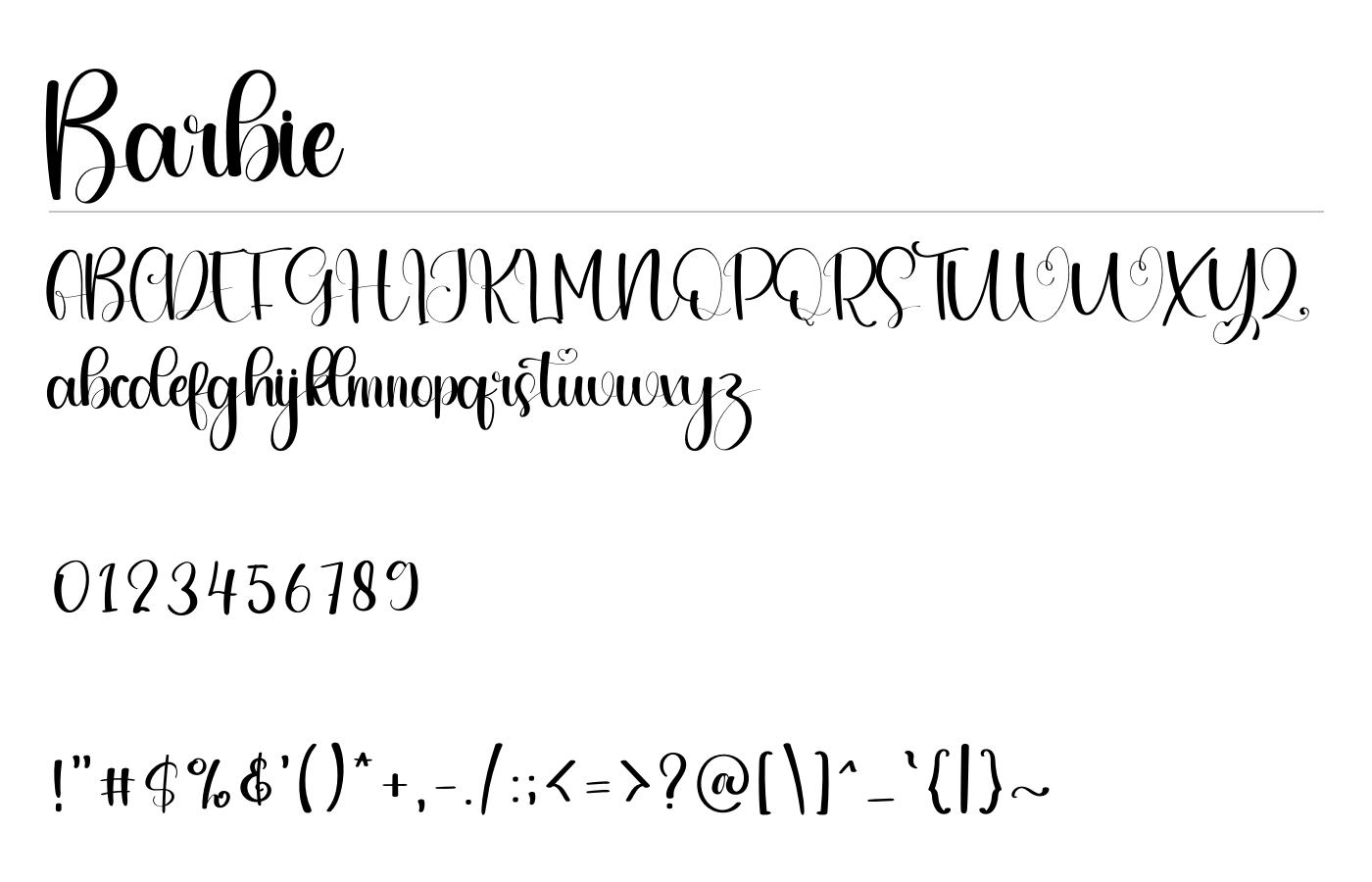
Barbie Font is a playful and elegant script typeface featuring tall, slender characters with delicate swashes and smooth curves that give it a hand-lettered charm. Its high contrast between thick and thin strokes and a mix of whimsical uppercase with fluid lowercase letters make it perfect for adding a feminine, stylish touch to invitations, branding, and creative designs. This font works best in logos, headings, and decorative text where a sophisticated yet approachable feel is desired.
Barbie Font
About Barbie Font